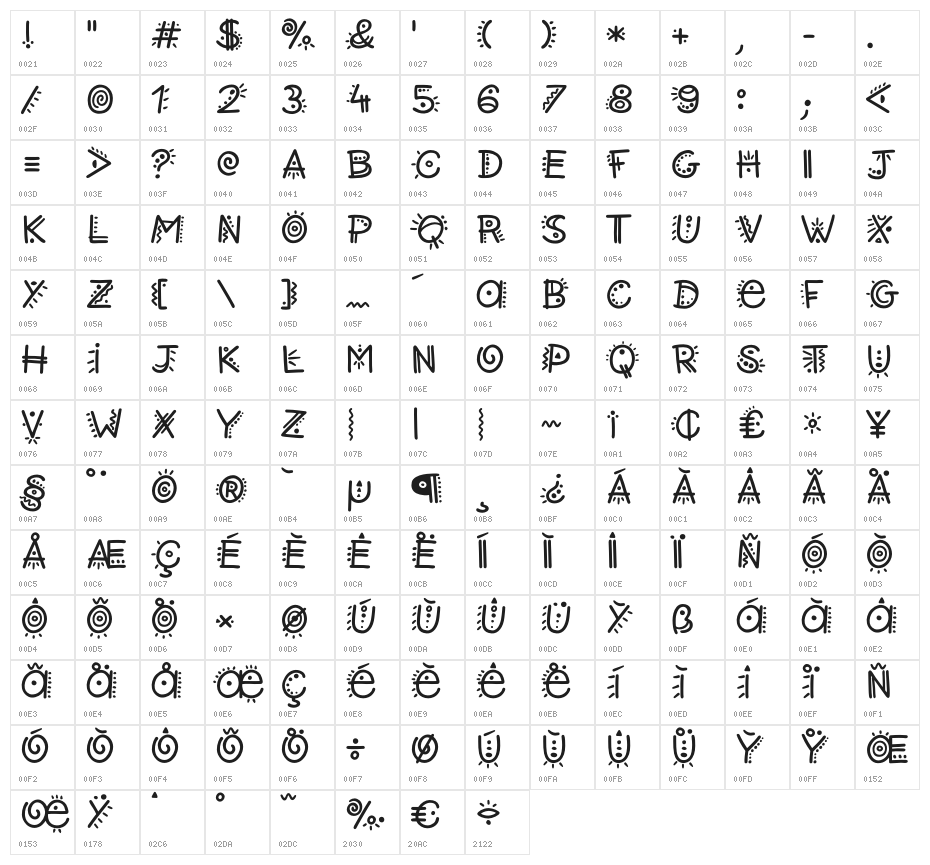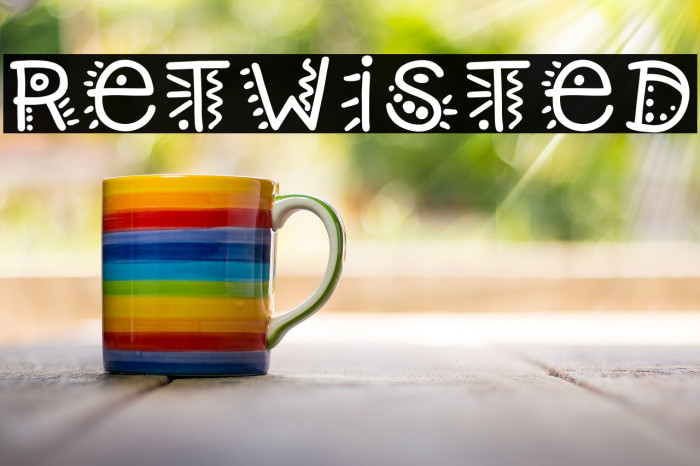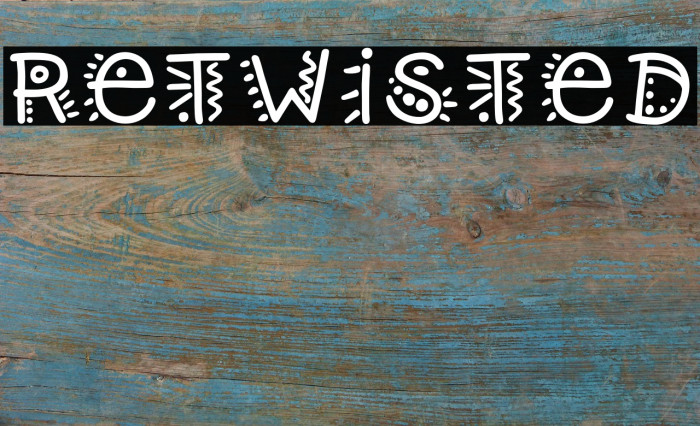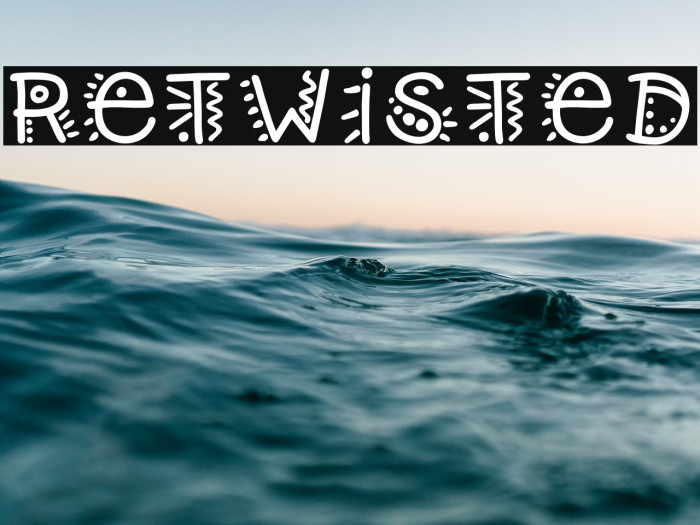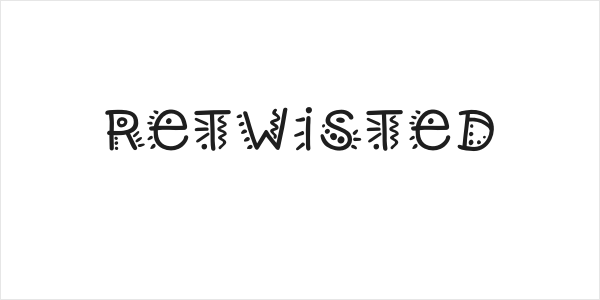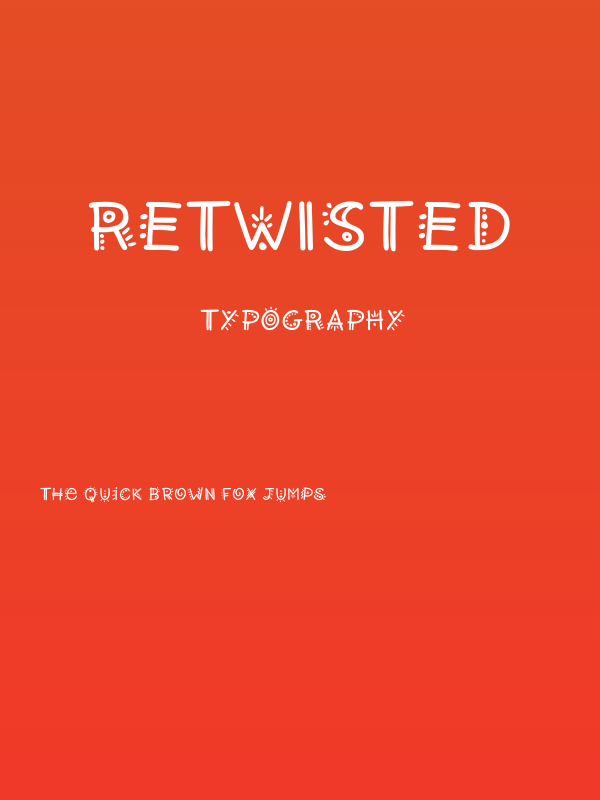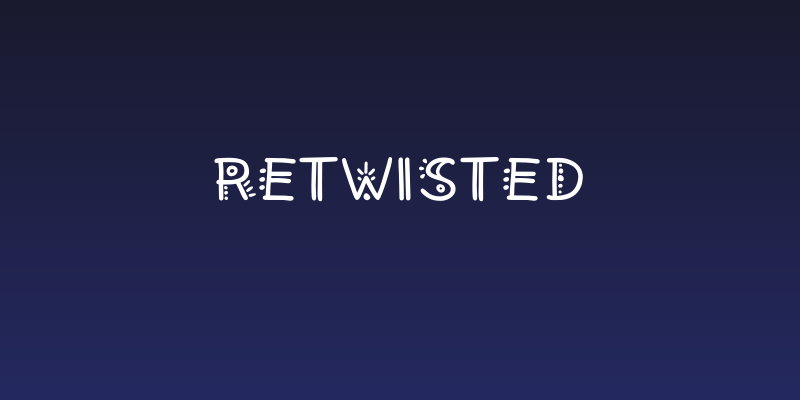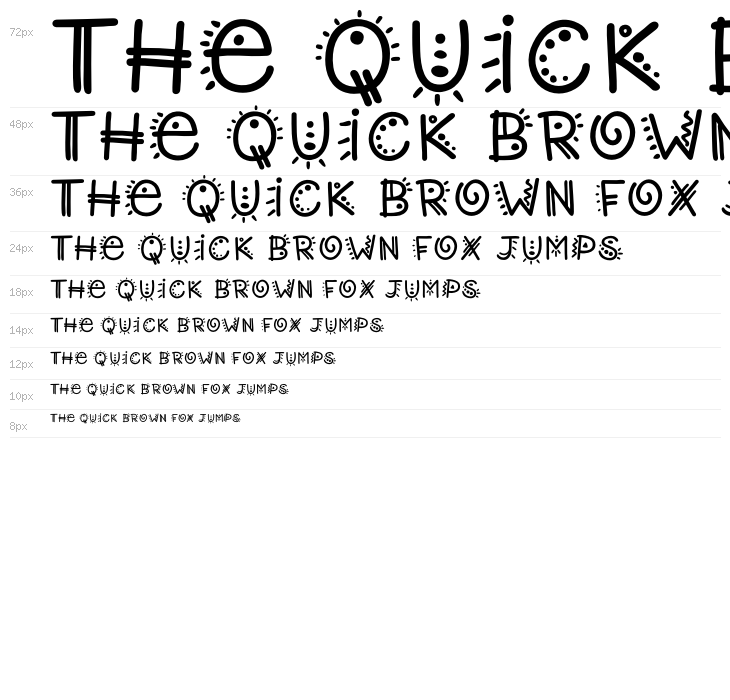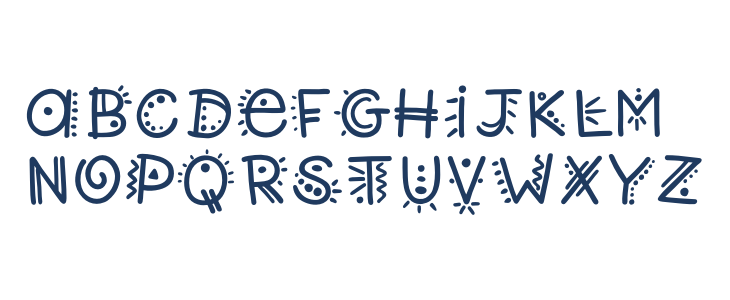
Retwisted Font
Retwisted Description
This playful and whimsical font features a unique design with decorative elements that add a sense of fun and creativity. Each character is adorned with dots, lines, or other embellishments, giving it a lively and energetic appearance. The uppercase and lowercase letters maintain a consistent style, with rounded edges and a slightly irregular shape that enhances its hand-drawn feel. The numbers and special characters follow the same decorative theme, ensuring a cohesive look across all elements. This font is perfect for projects that require a touch of personality and flair, making it ideal for children's books, party invitations, or any creative endeavor that seeks to capture attention and evoke joy.
| Overall Style | Whimsical, Playful, Creative |
| Proposed Projects | Ideal for children's books, party invitations, playful branding, and creative posters. |